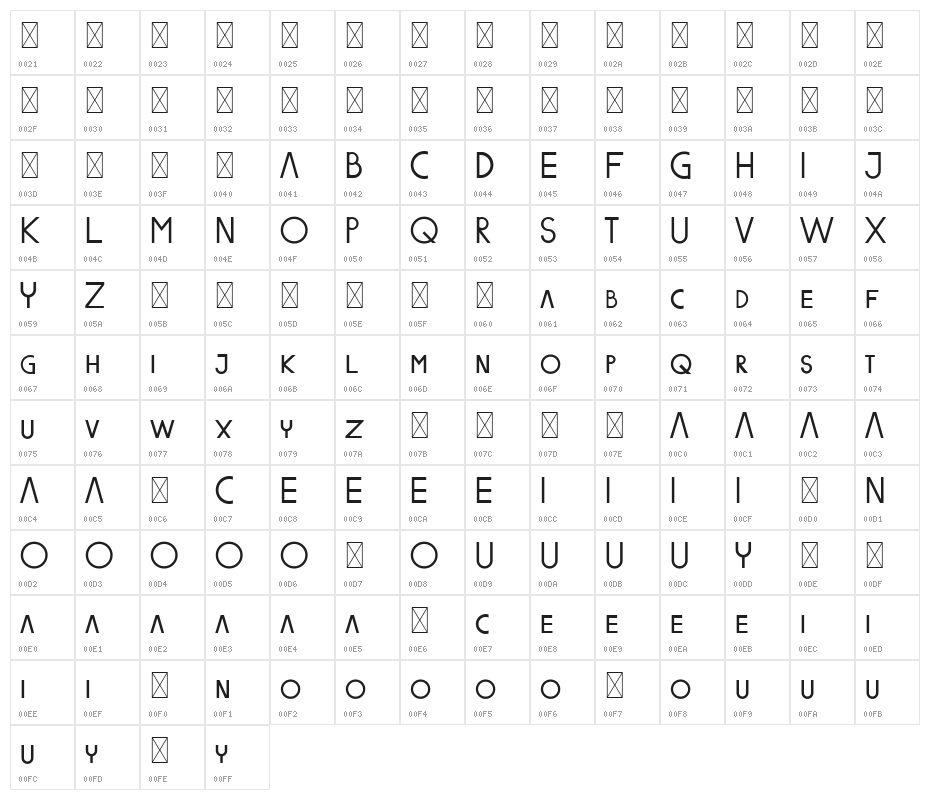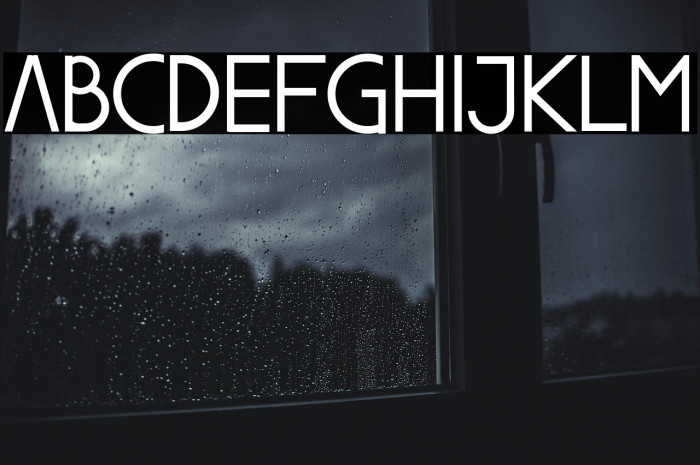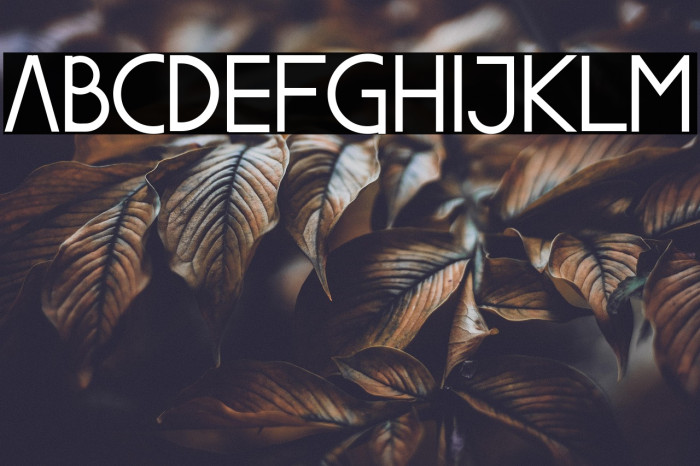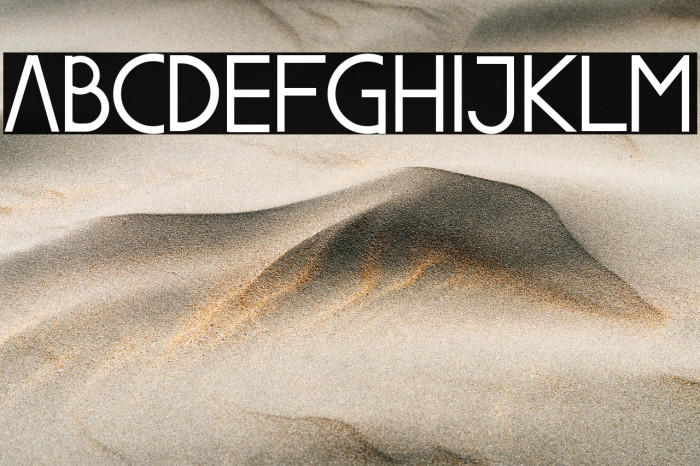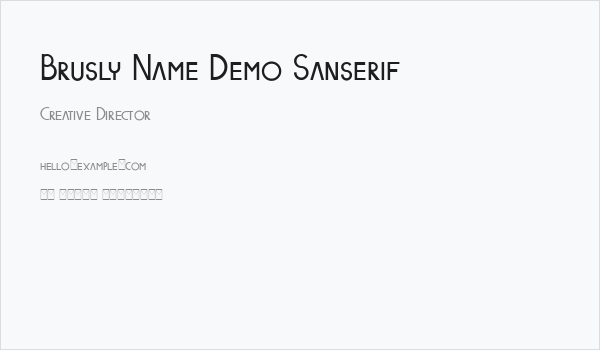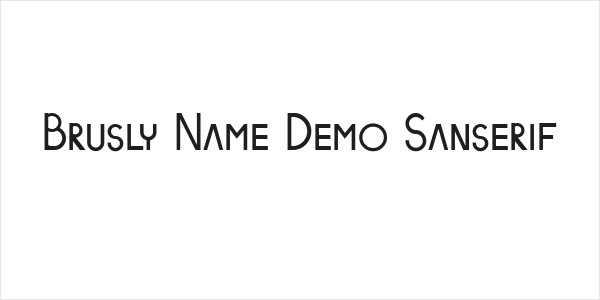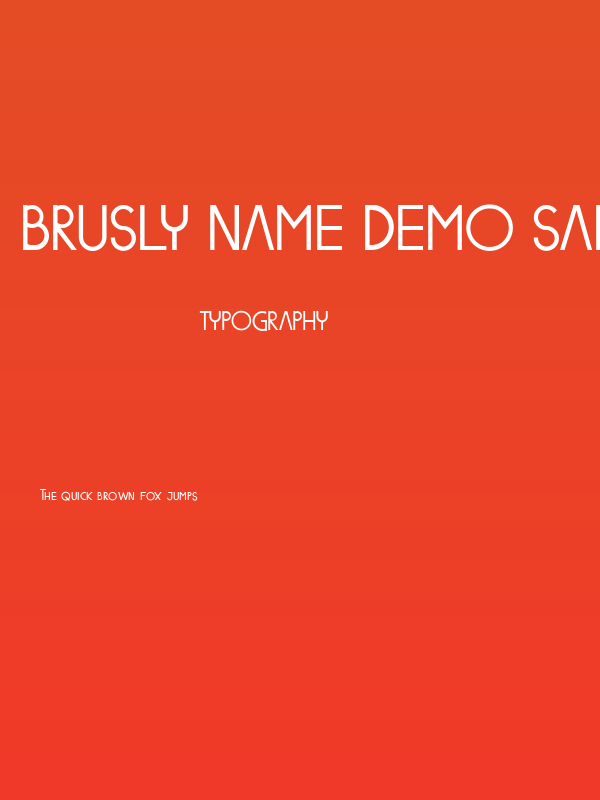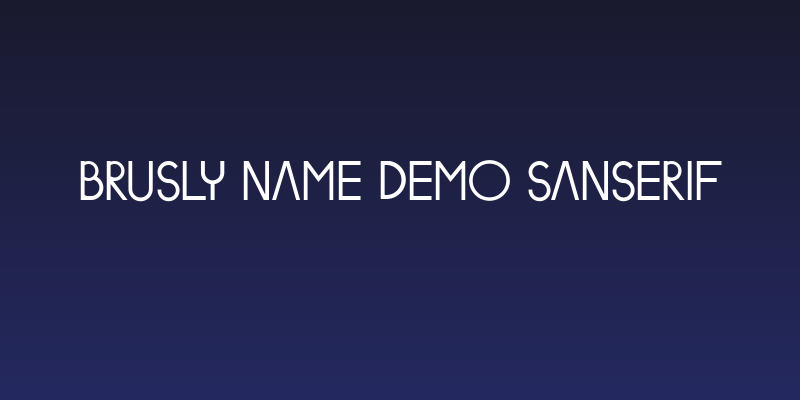
Brusly Name Demo Sanserif Font
Brusly Name Demo Sanserif Description
This font features a clean and modern sans-serif style with geometric influences. The uppercase letters are characterized by sharp angles and straight lines, giving it a contemporary and minimalist appearance. The strokes are consistent in weight, contributing to a uniform look across all characters. The absence of serifs enhances its sleek and streamlined design, making it suitable for a variety of digital and print applications. The font's simplicity and clarity ensure excellent readability, even at smaller sizes.